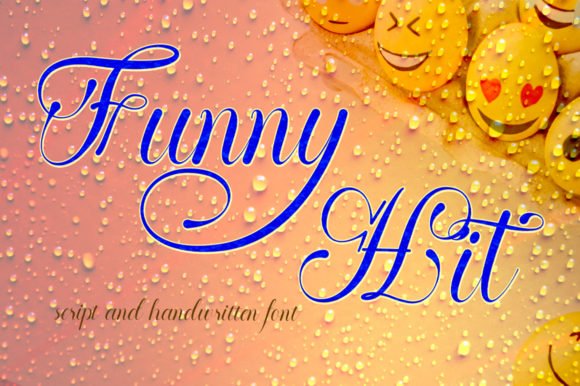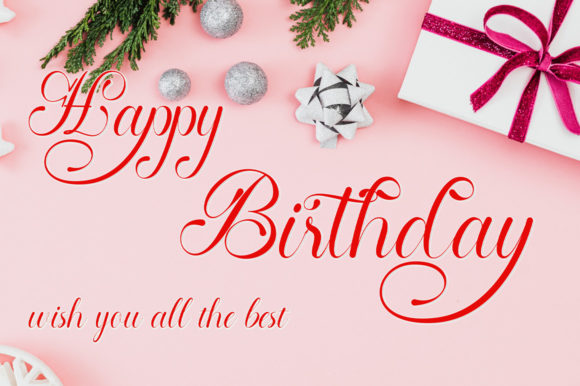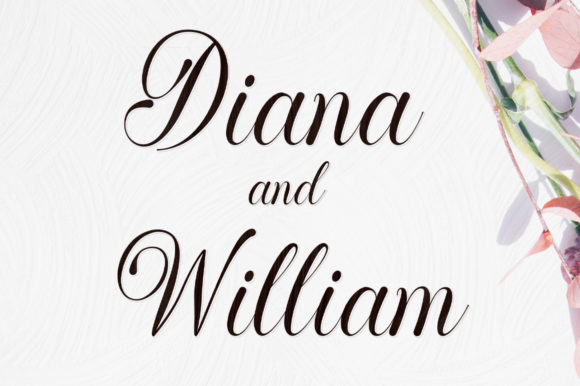
Introduction to Funny Hit Font
Have you ever been searching for the perfect font to capture the essence of a special moment, but ended up scrolling through countless options without finding the right one? We’ve all been there – stuck in a sea of generic fonts, desperately seeking something that truly stands out. But what if I told you that there’s a font that can make your creative projects truly shine? Say hello to the Funny Hit Font, a sweet and delicate handwritten font that’s sure to add a touch of whimsy to your designs.
This high-quality design resource is perfect for those looking to add a personal touch to their projects. Whether you’re designing wedding invitations, cards, or any other creative project, the Funny Hit Font is sure to bring a smile to your face. And the best part? It’s free to download, making it an accessible resource for designers of all levels.
Key Features of Funny Hit Font
- Unique and quirky design ideal for creative projects, including cartoons, comics, and children’s books.
- Perfect for designers looking for a fun and playful design resource to add a touch of humor to their creative project.
Honest Review: Funny Hit Font
The high-quality design is what truly stands out. The clean lines and bold typography make it perfect for a variety of creative projects, from posters to social media graphics.
- Unique and bold typography
- Limited font styles (only one style is available)
Overall, the Funny Hit Font is a great addition to any design library. While it may not be perfect, its unique style and high-quality design make it a valuable resource for creatives working on a variety of projects.
To get the most out of Funny Hit Font, use it sparingly and in combination with other fonts to create visual interest. Also, ensure the font is legible and easy to read, especially in smaller sizes.
Funny Hit Font is ideal for creative projects such as graphic design, social media graphics, logos, posters, presentations, and reports. Its playful and eye-catching style makes it perfect for grabbing attention and conveying a message.